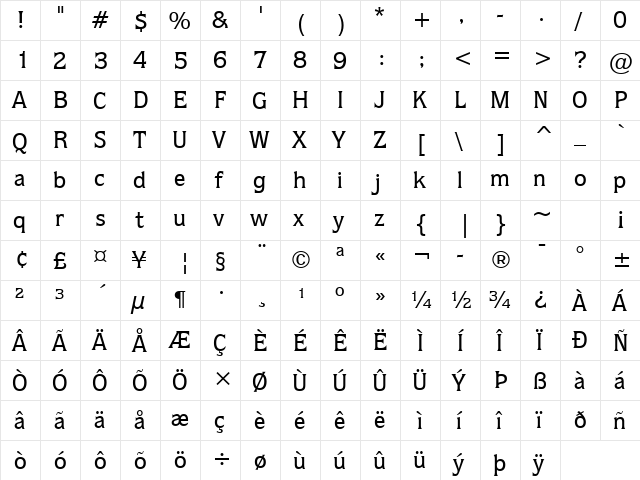
Quorum Md BT Medium
Design Context for Quorum Md BT Typeface
Quorum Md BT is a composed and adaptable typeface that performs quietly and consistently across a wide range of design contexts.